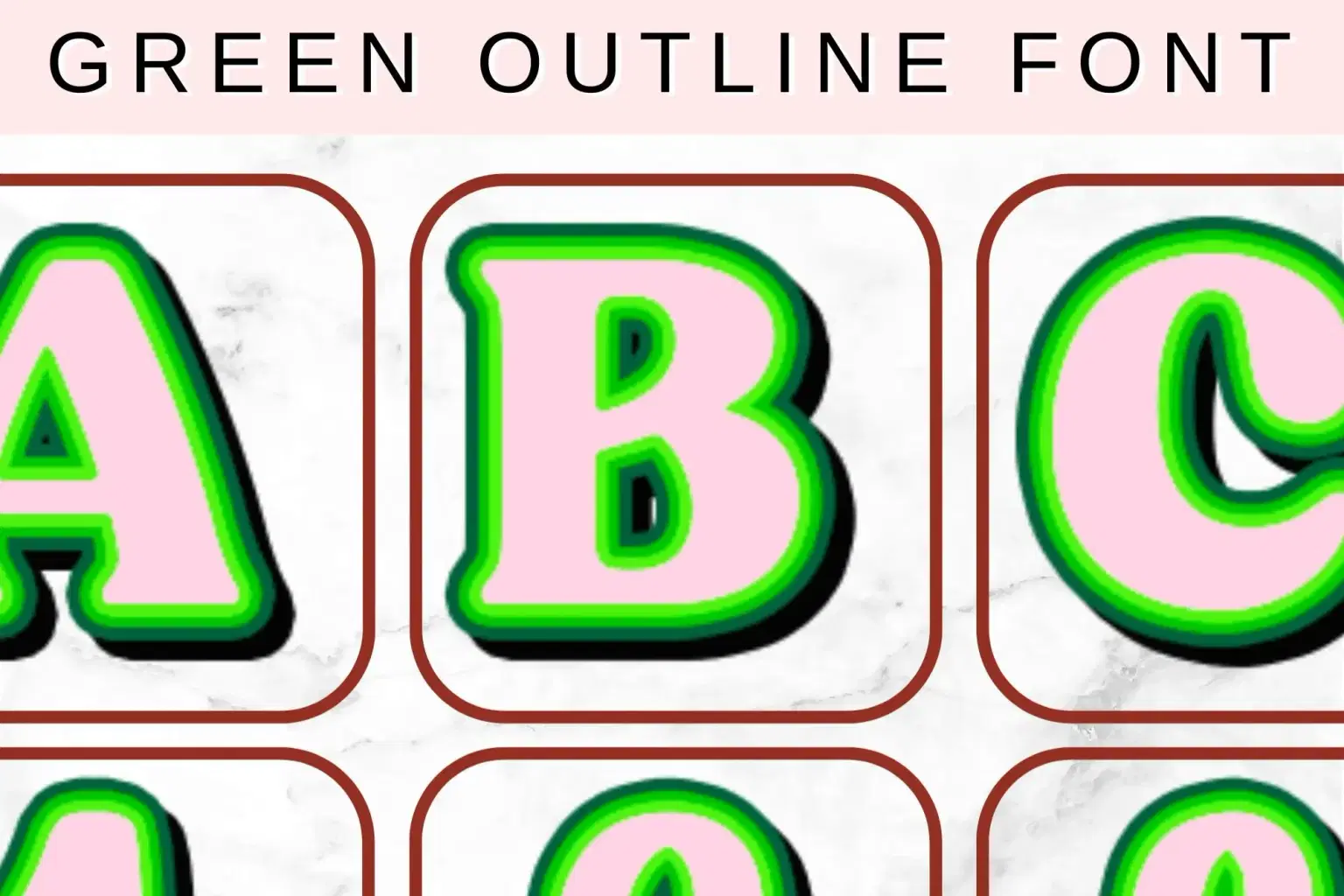
Add a fresh, modern touch to your designs with this Green Outline Font Clip Art bundle featuring 37 stylized letters and digits. Each character is crafted with a clean Green outline, creating a sleek and versatile look perfect for a wide range of creative projects. This alphabet PNG bundle is ideal for digital scrapbooking, card making, invitations, web design, social media graphics, and more.
Features:
Includes 26 uppercase letters (A-Z) and 11 digits (0-9), all in a consistent Green outline style
Stylish and minimalist design that complements both modern and playful aesthetics
Whether you’re creating branding materials, personalized gifts, or eye-catching digital content, this green outline font art bundle offers a unique and elegant way to showcase letters and numbers with style.